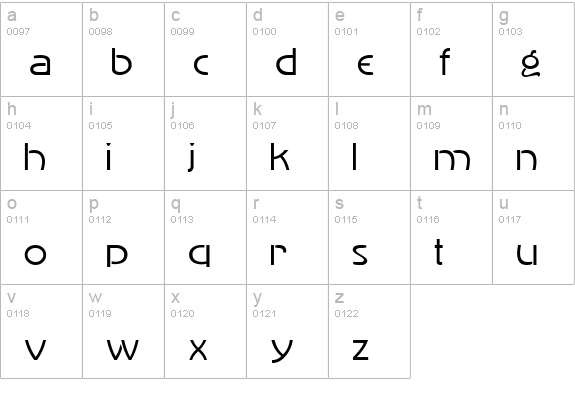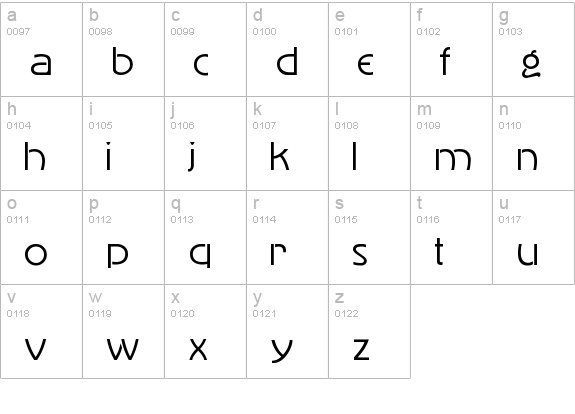
Advertisers Gothic Light is a refined, elegant variant in the Advertisers typeface family \xE2\x80\x94 well suited to elegant body text, refined sub-headings, and luxury branding.
Introducing Advertisers Gothic Light font - a modern and sleek typeface perfect for advertising and branding projects. This elegant sans-serif font boasts clean lines and a sophisticated appearance that is sure to make your designs stand out. With its light weight and contemporary style, Advertisers Gothic Light is versatile and suitable for a wide range of design applications. Best of all, this stunning font is available for free download at FontsMarket.com. Don't miss out on the opportunity to elevate your projects with this high-quality typeface at no cost. Download Advertisers Gothic Light today and bring a touch of elegance to your designs!